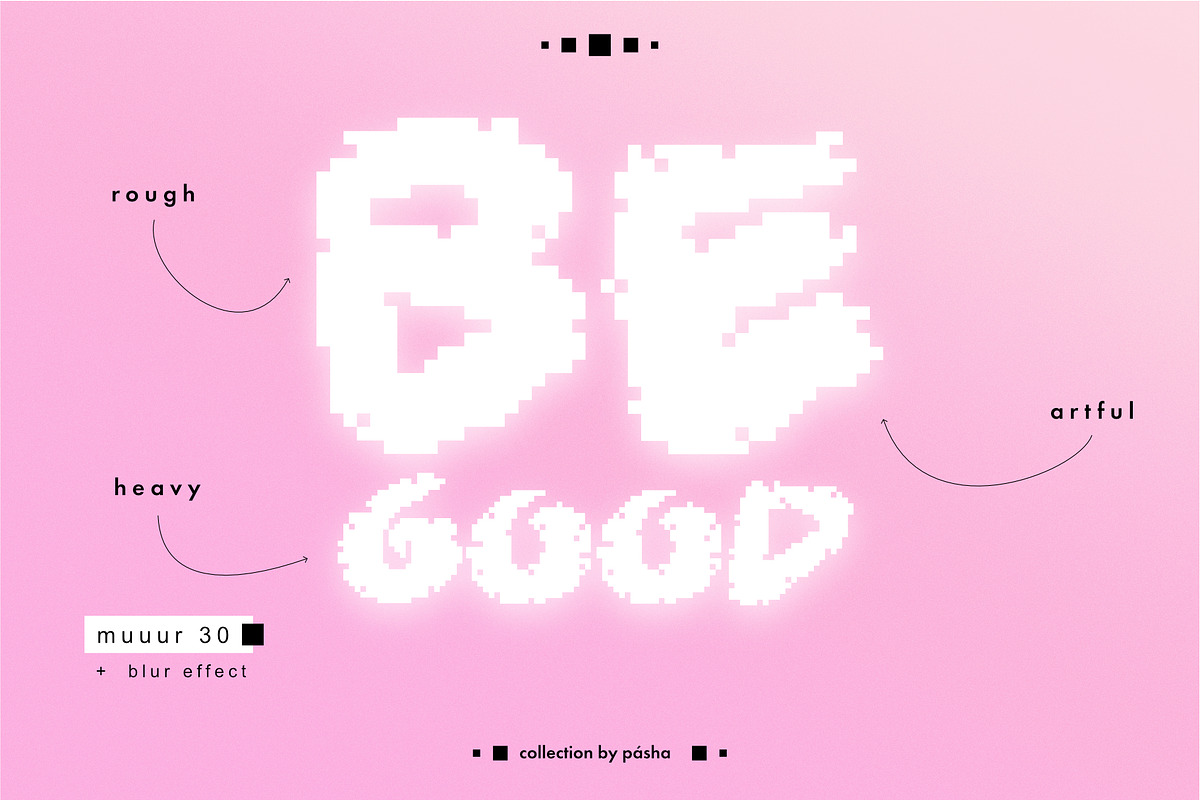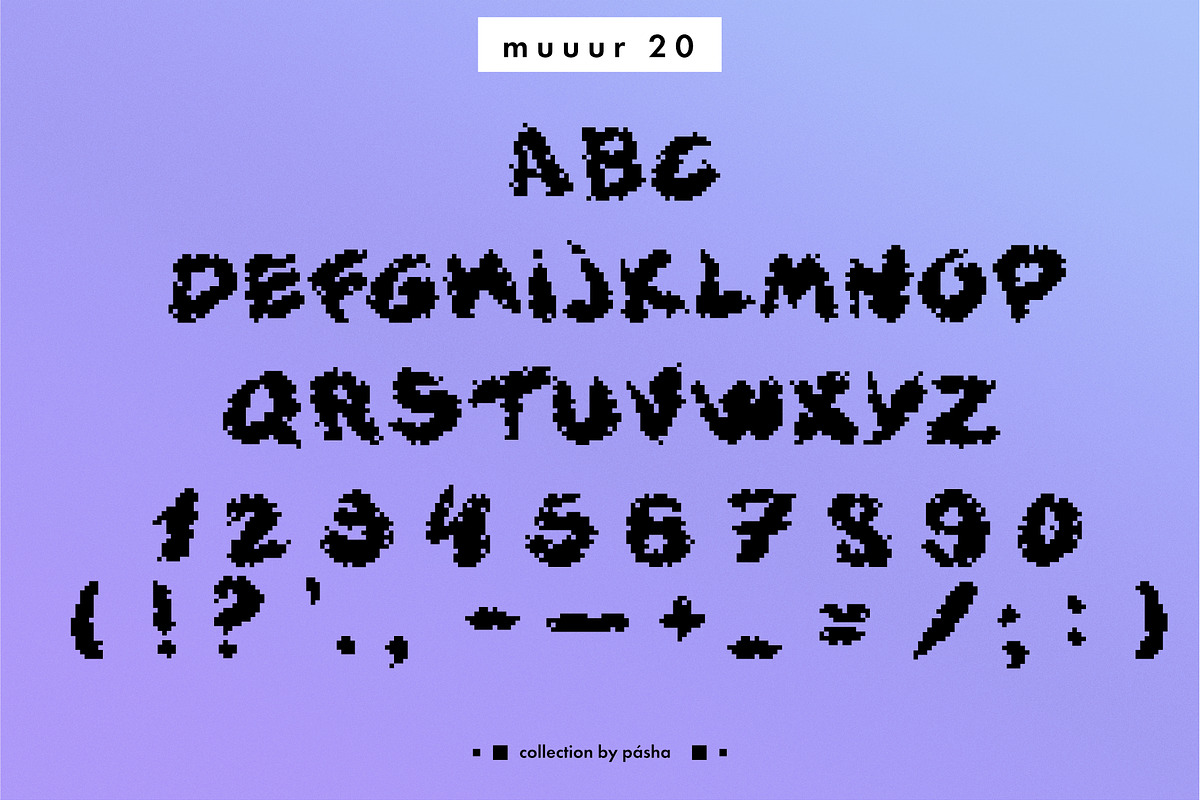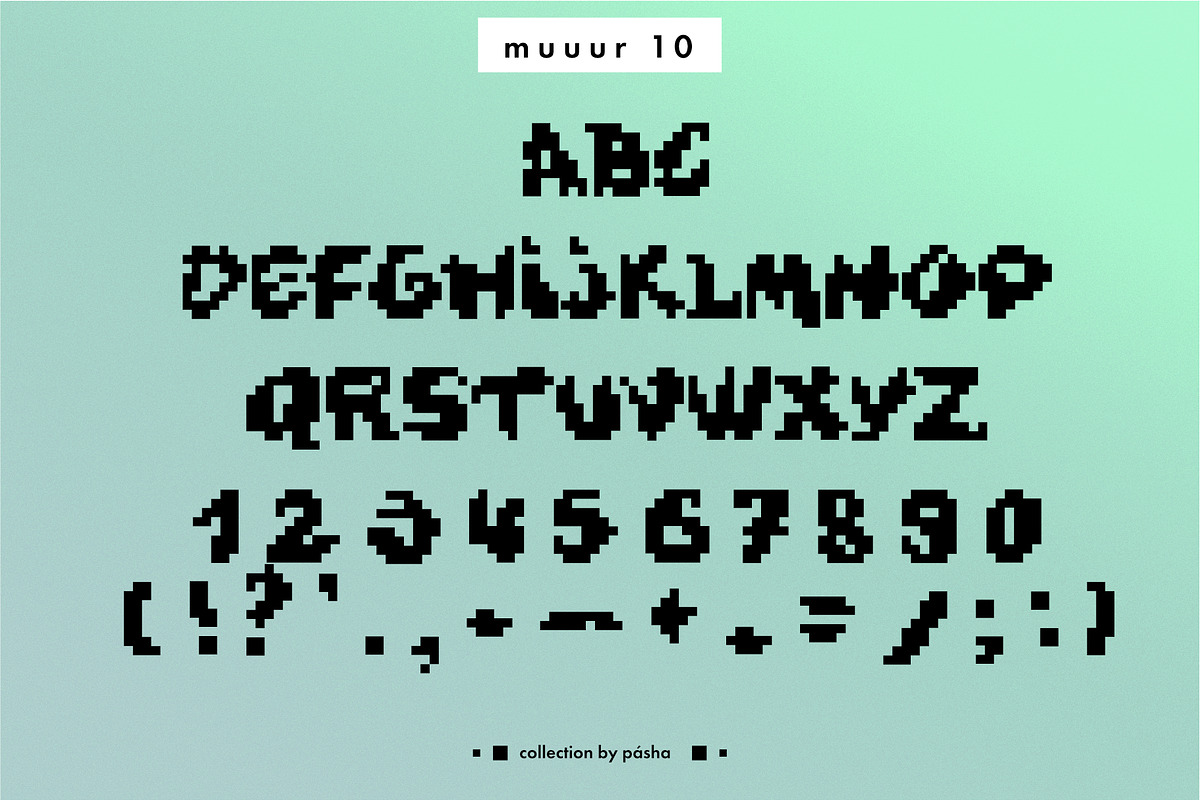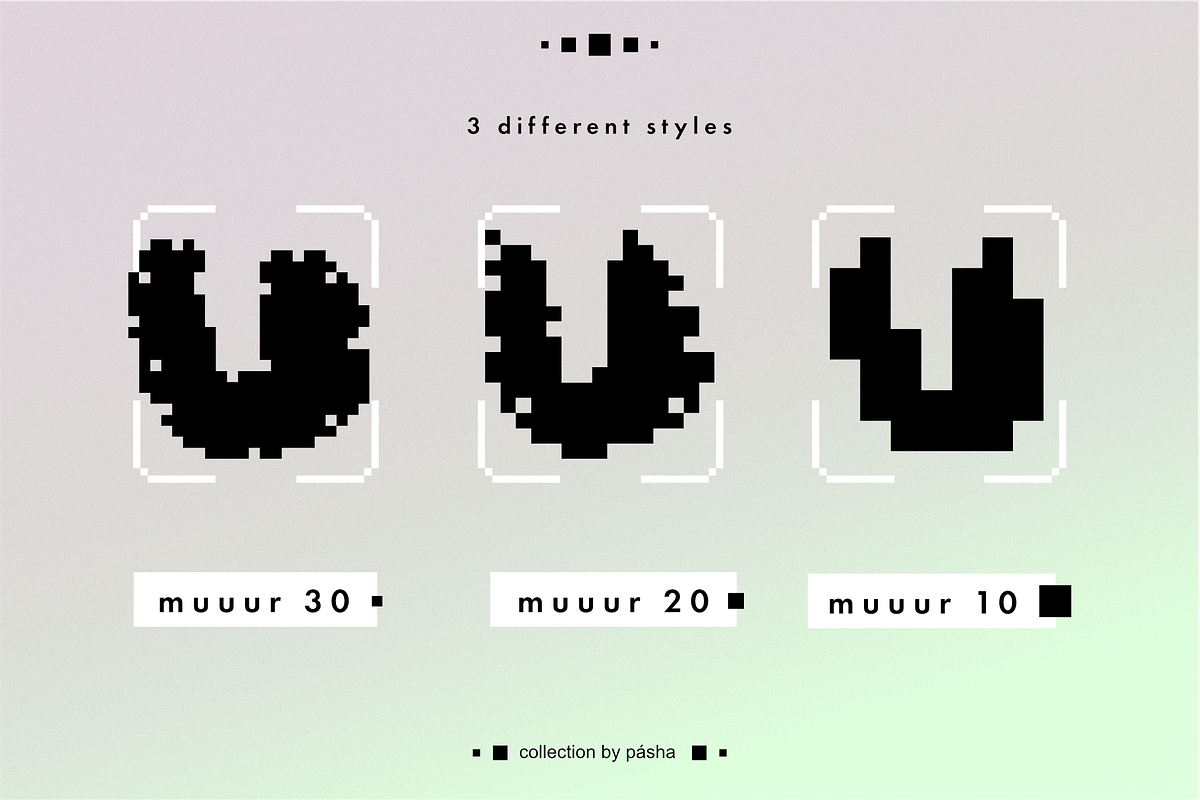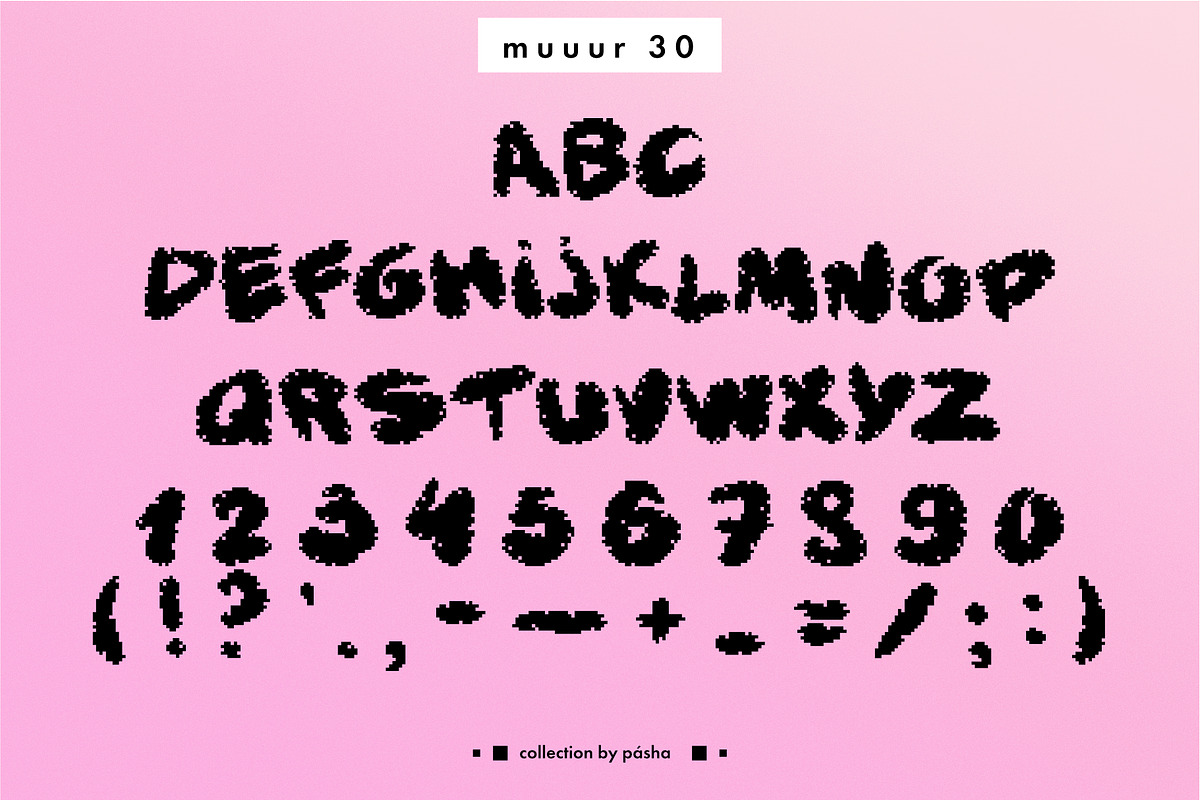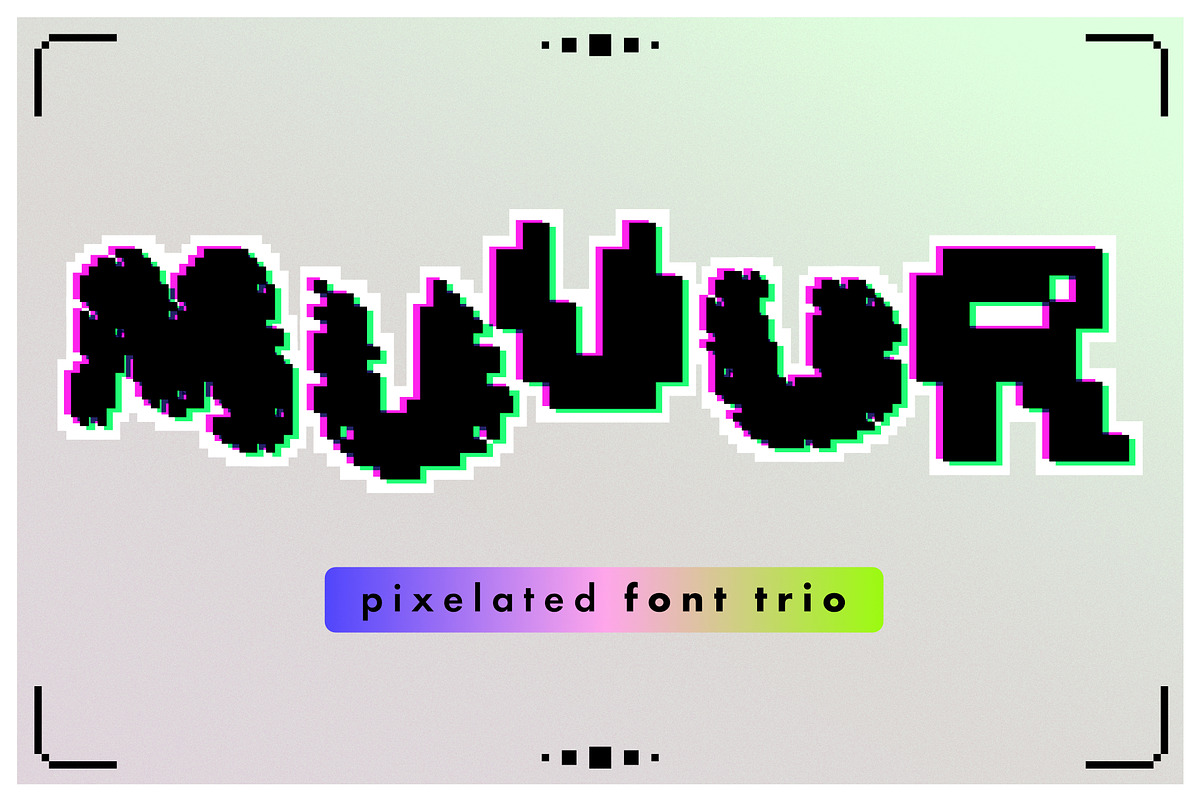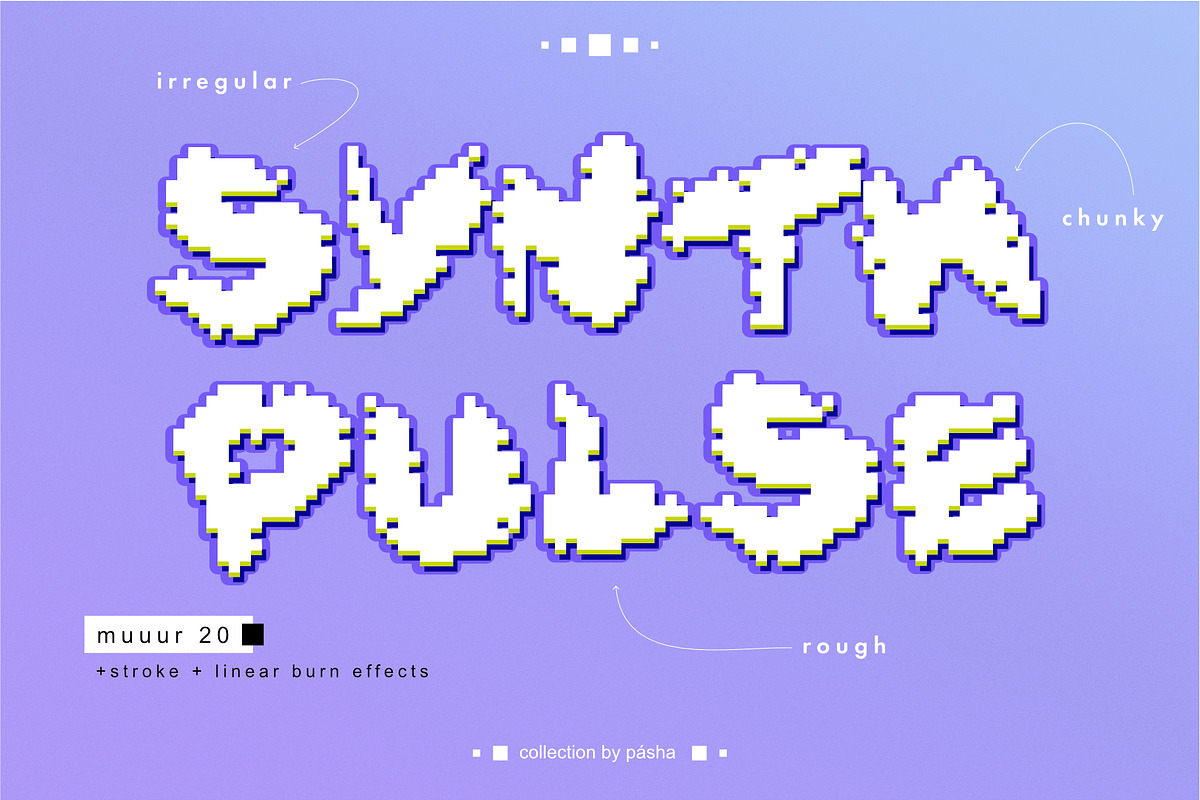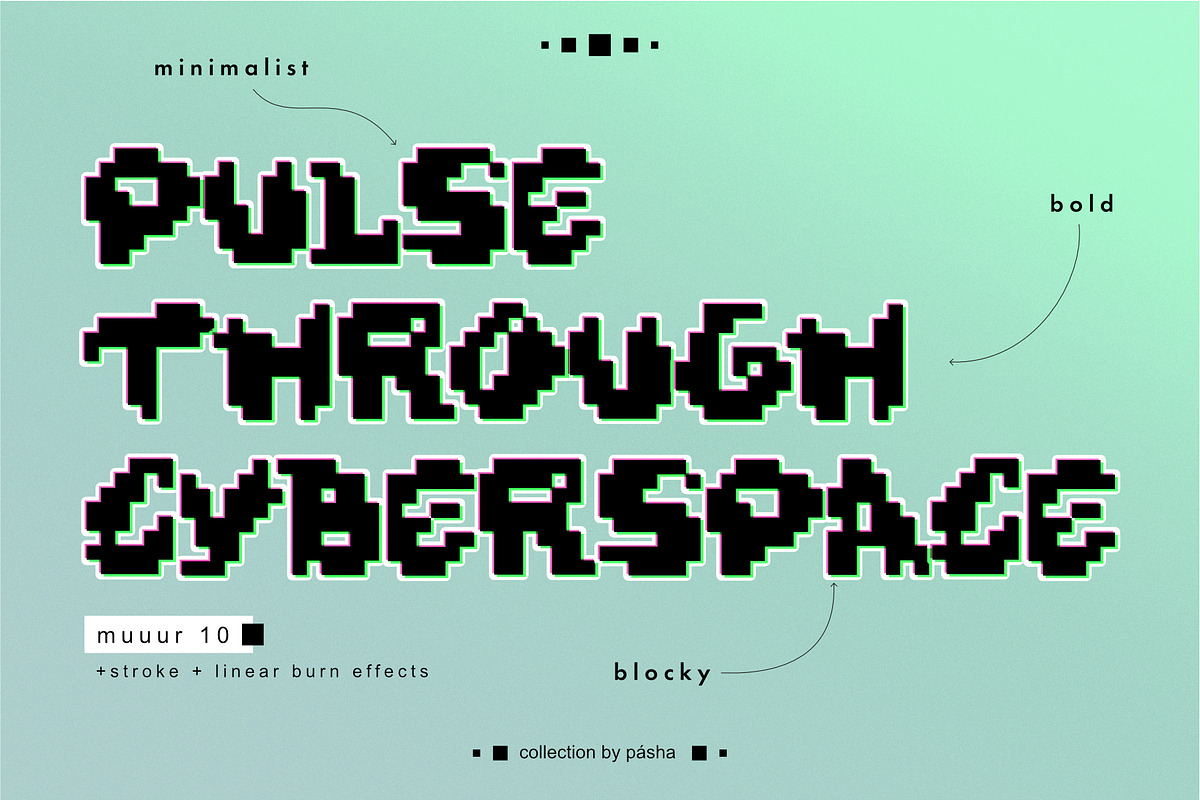
Pixelated font trio: MUUUR
Pixelated Font Trio: MUUUR A trio of handcrafted pixel fonts for a retro-futuristic vibe.
These three pixel fonts offer varying levels of pixelation, giving you the flexibility to create unique designs. Take one, take two, take three - shake, do not stir - and mix unique results. All three versions are based on the same handwritten graffiti-style font and have similar proportions and thickness. With a focus on irregular lines and weights, these fonts are perfect for adding a touch of retro-futurism to your digital and print projects.
- Muuur 10 - the version with the strongest pixelation - all letters are very rough and simplified.
- Muuur 20 - the middle level of pixelation - more details, higher readability and more details.
- Muuur 30 - the lowest pixelation - all letters have different "artefacts" and "defects" and develop some kind of a noise effect.
The font contains:
- Uppercase letters from A to Z
- Numerals from 0 to 9
- Punctuation symbols (!?'.,-—+_=/;:)